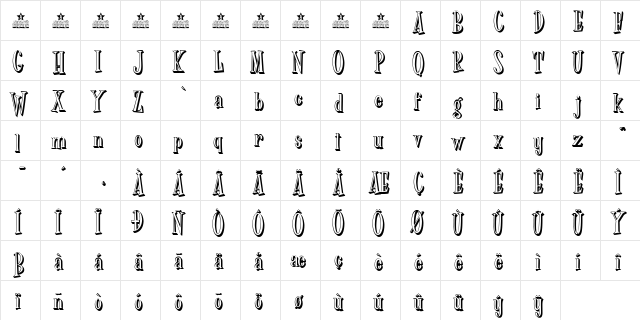
Dr Phibes Shadow Regular
Design Context for Dr Phibes Shadow Typeface
Dr Phibes Shadow is built around its visual character rather than neutral utility — its distinctive forms are designed to make an impression at display sizes.
Font Pairing: Pair with a clean neutral sans-serif for body copy to let Dr Phibes Shadow's character lead without overwhelming the composition.
Pro Tip: Use Dr Phibes Shadow exclusively at display sizes — it was designed to be seen, not read at length. Let a neutral companion handle body copy.